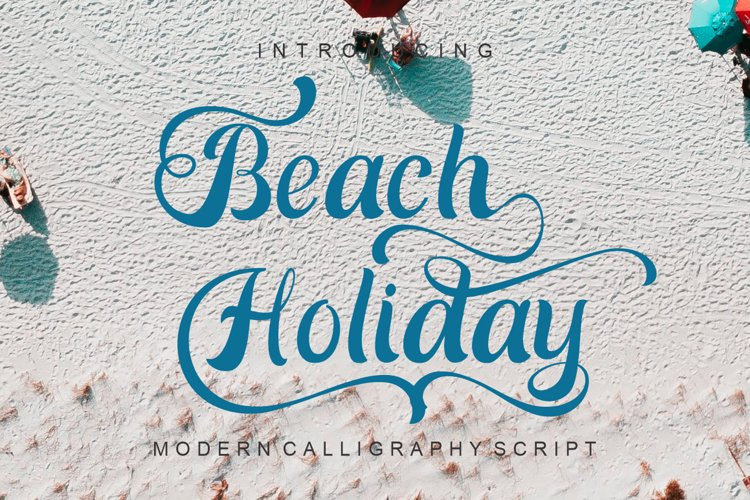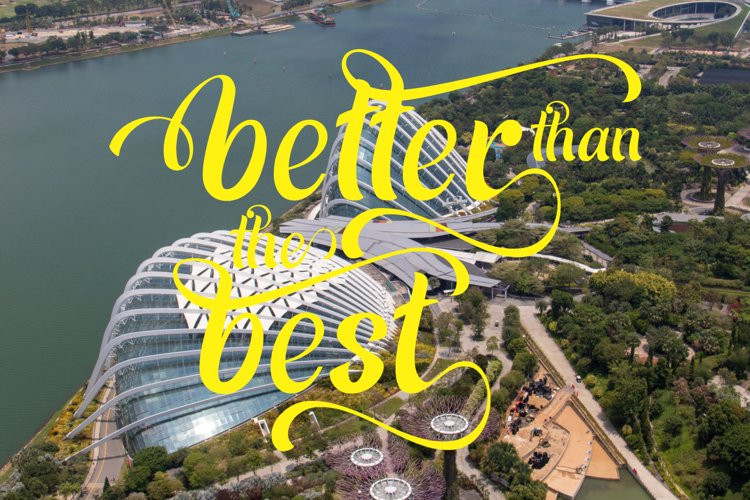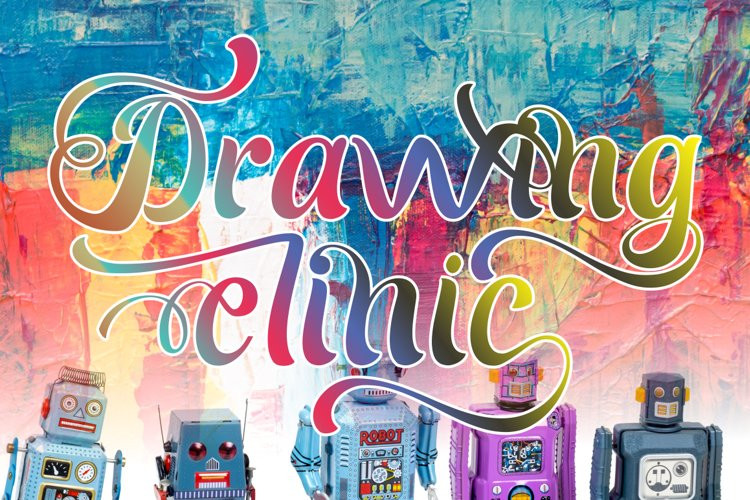
Beace Holiday Font
Beace Holiday FontBeace Holiday is an elegant calligraphy luxury font that comes with a very beautiful character change, a kind of classic decorative script with a modern touch, designed with high detail to present an elegant style.
Beace Holiday is attractive because the typeface is pleasing to the eye, clean, feminine, sensual, glamorous, simple and very easy to read, thanks to its many extravagant letter relationships. I also offer a decent number of stylistic alternatives for some of the letters. Classic style is very suitable to be applied in various formal forms such as invitations, labels, restaurant menus, logos, fashion, make up, stationery, novels, magazines, books, greeting/wedding cards, packaging, labels or all kinds of advertising purposes. and much more. .